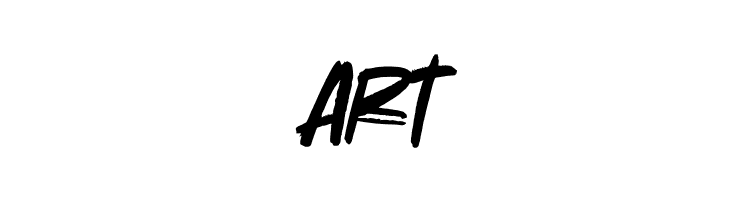
Karmatic Arcade Font
A bold, pixelated font inspired by classic arcade games.
Karma Bold Font
A bold serif font with strong vertical strokes and classic elegance.
Karma SemiBold Font
A semi-bold serif font with moderate contrast and refined serifs, offering elegance and readability.
Karma Medium Font
A classic serif typeface with medium contrast and elegant serifs.
Good Karma demo Font
A cursive, handwritten-style font with elegant loops and fluid connections.
Karma Light Font
A classic serif font with light weight and moderate contrast, offering elegance and readability.
Karma Regular Font
A modern serif typeface with balanced proportions and elegant curves.
KarmaSuture-Regular Font
A pixelated, blocky font with a retro digital aesthetic.
Karma Font
A bold, modern font with clean lines and a strong presence.
Karma Suture Font
A pixelated, retro-style font with a digital, blocky appearance.
Karmatic Revolution Font
A playful, handwritten font with bold, slanted strokes and a lively appearance.
Breathe Karma Italic Regular Font
A dynamic, edgy font with sharp, angular strokes and an italicized appearance.
Karma Future Font
A bold, pixelated font with a retro digital style.
Xero's Karma Regular Font
A bold, geometric font with a futuristic, digital aesthetic.
KarmaCycle Font
Breathe Karma Regular Font
An edgy, hand-drawn font with sharp, elongated strokes and a distressed texture.
Karmakooma Font
A bold, brush-style font with textured, dynamic strokes.
InFormal Style Regular Font
A playful, informal font with rounded edges and a handwritten style.
TF_Karma Font
A modern, geometric font with clean lines and rounded edges.
KarmaFuture-Regular Font